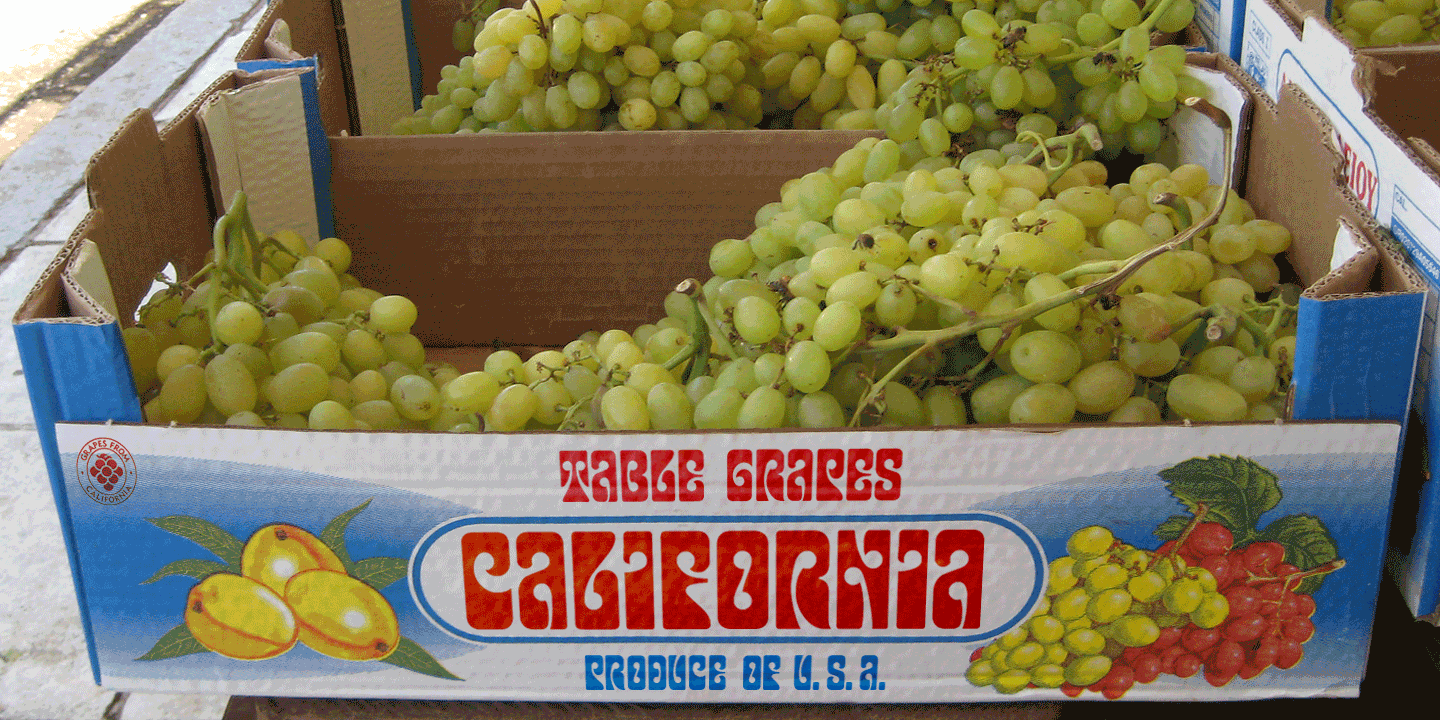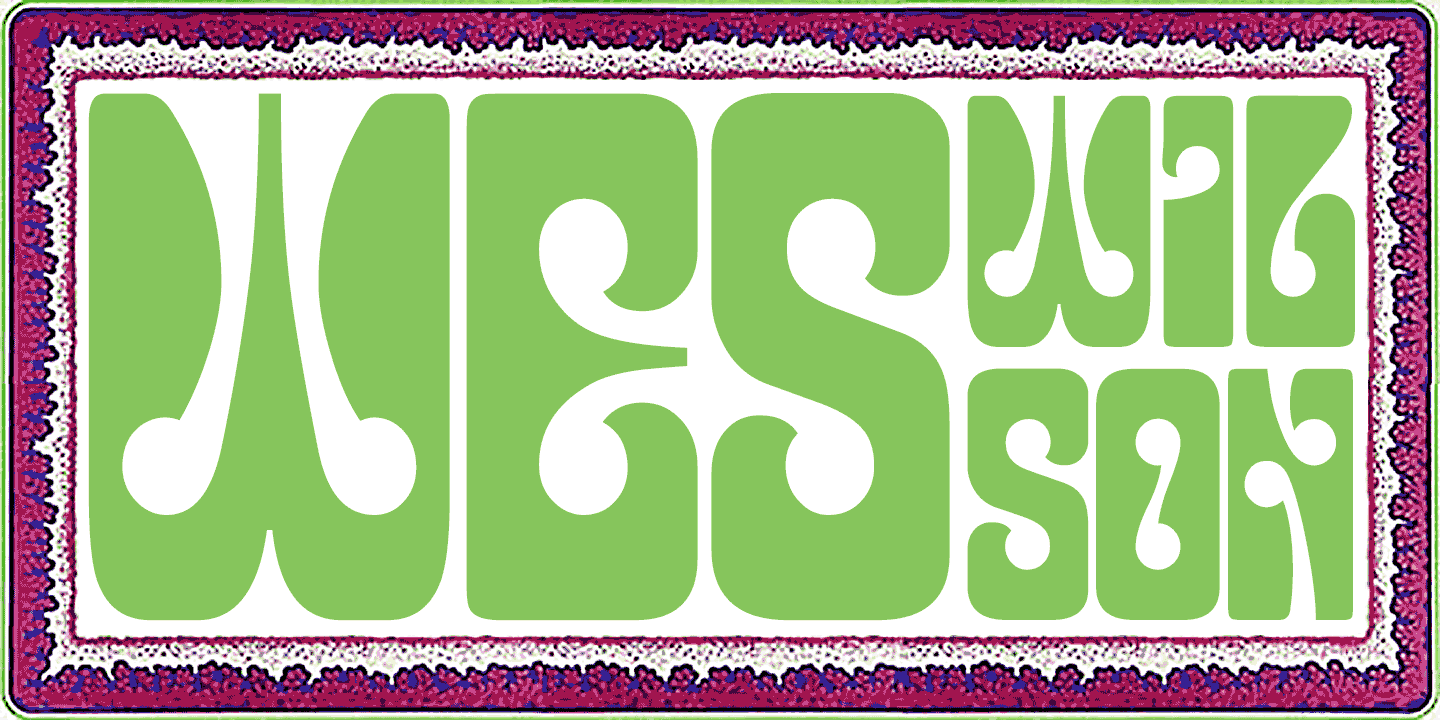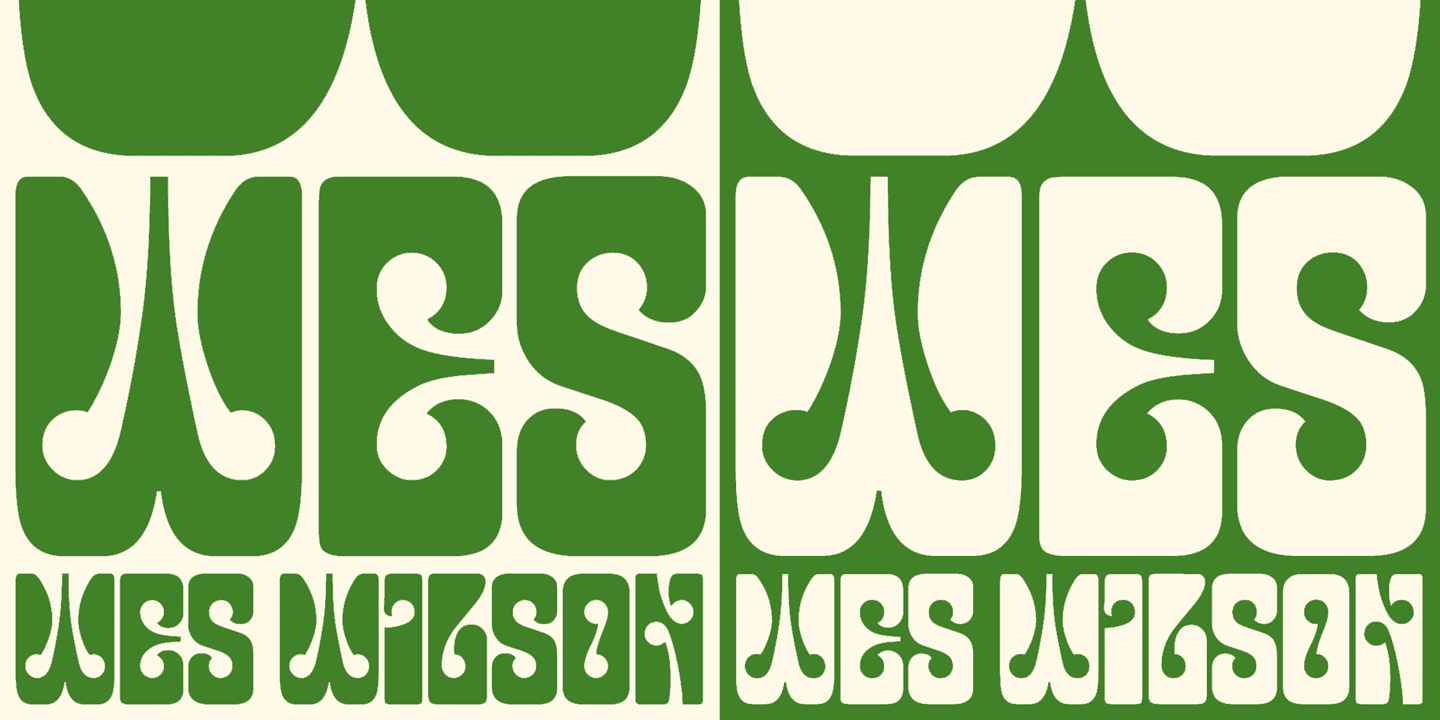
Wes Wilson
About Wes Wilson
The Wes Wilson font is an all capitals typeface inspired by the pioneer of 1960s psychedelic poster design, the Californian artist Wes Wilson. A key influence on the letterforms is the work of Austrian Secessionist, Alfred Roller, though this font, like…